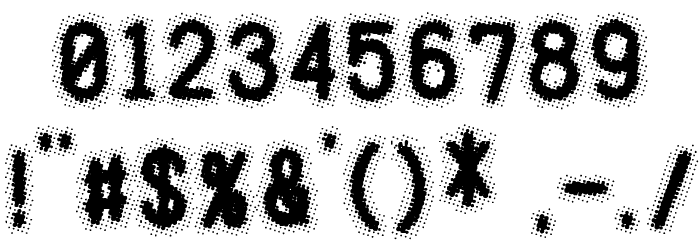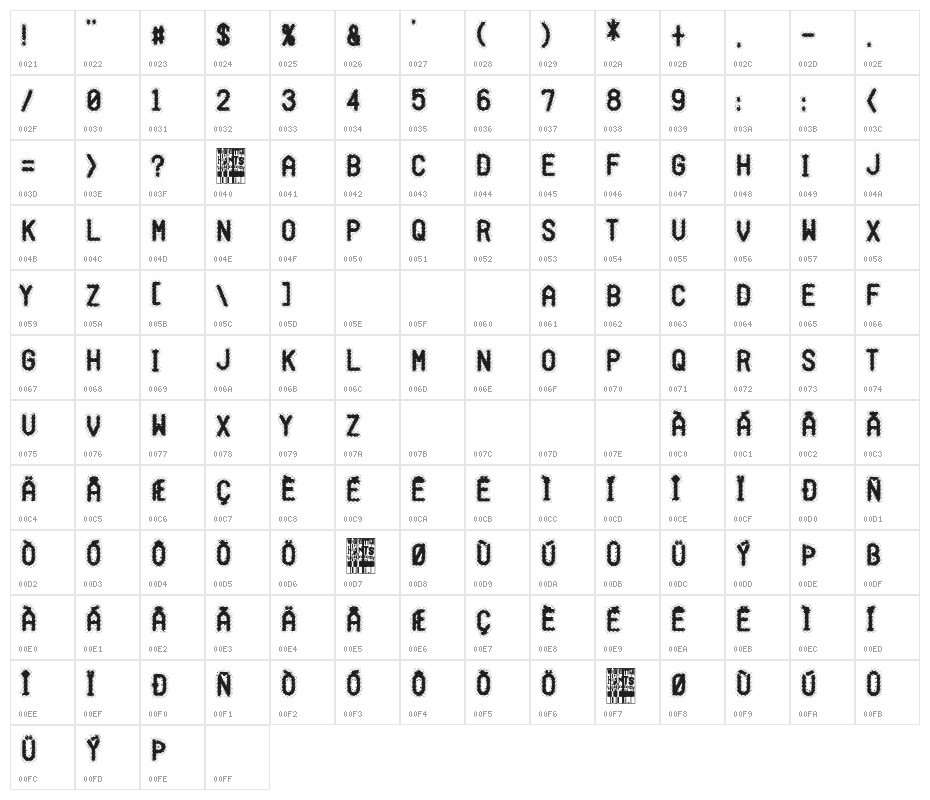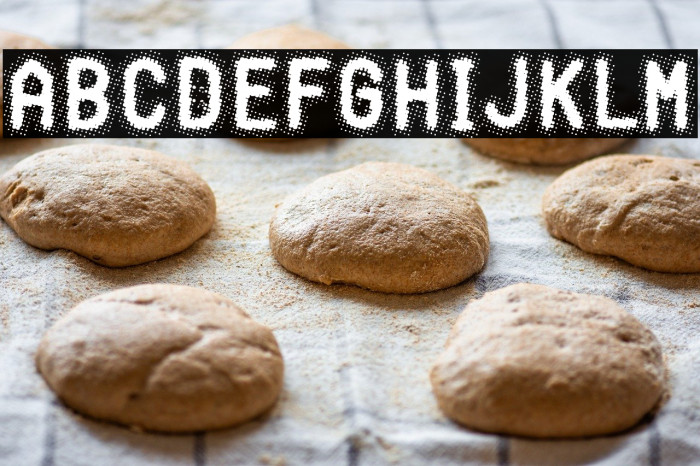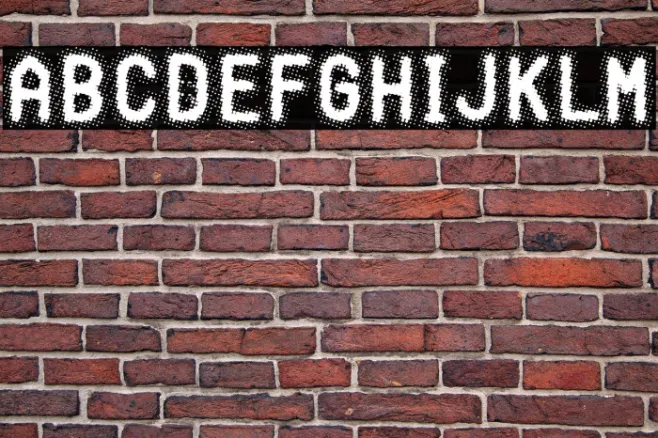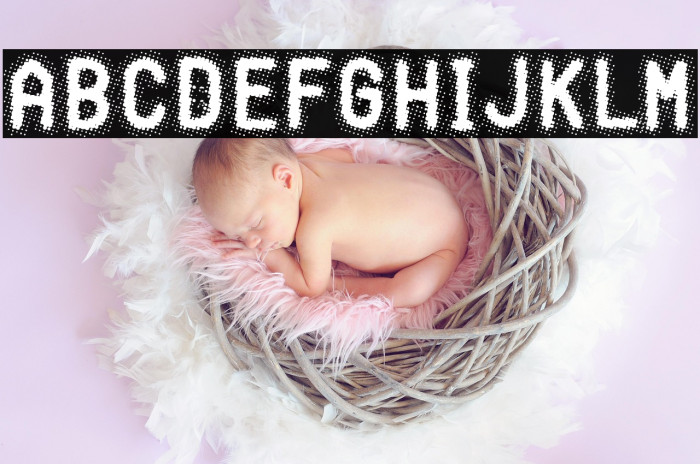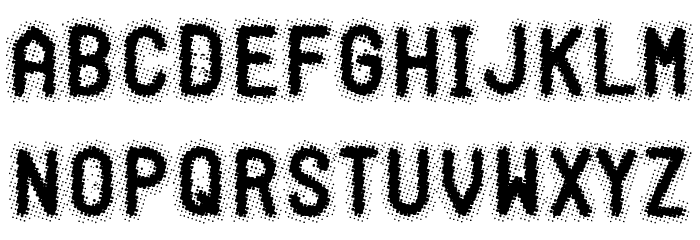
Tragic Blur Font
Tragic Blur Description
This font features a unique, distressed appearance with a halftone dot pattern that gives it a vintage, worn-out look. The characters are bold and slightly rounded, with a consistent thickness throughout. The halftone effect creates a sense of depth and texture, making it stand out in any design. This style is reminiscent of old comic books or retro print media, adding a nostalgic touch to any project. The uppercase and lowercase letters maintain a uniform style, while the numbers and special characters complement the overall aesthetic. This font is ideal for projects that aim to evoke a sense of history or nostalgia.
| Proposed Projects | Ideal for retro-themed posters, vintage branding, comic book designs, and creative packaging. |